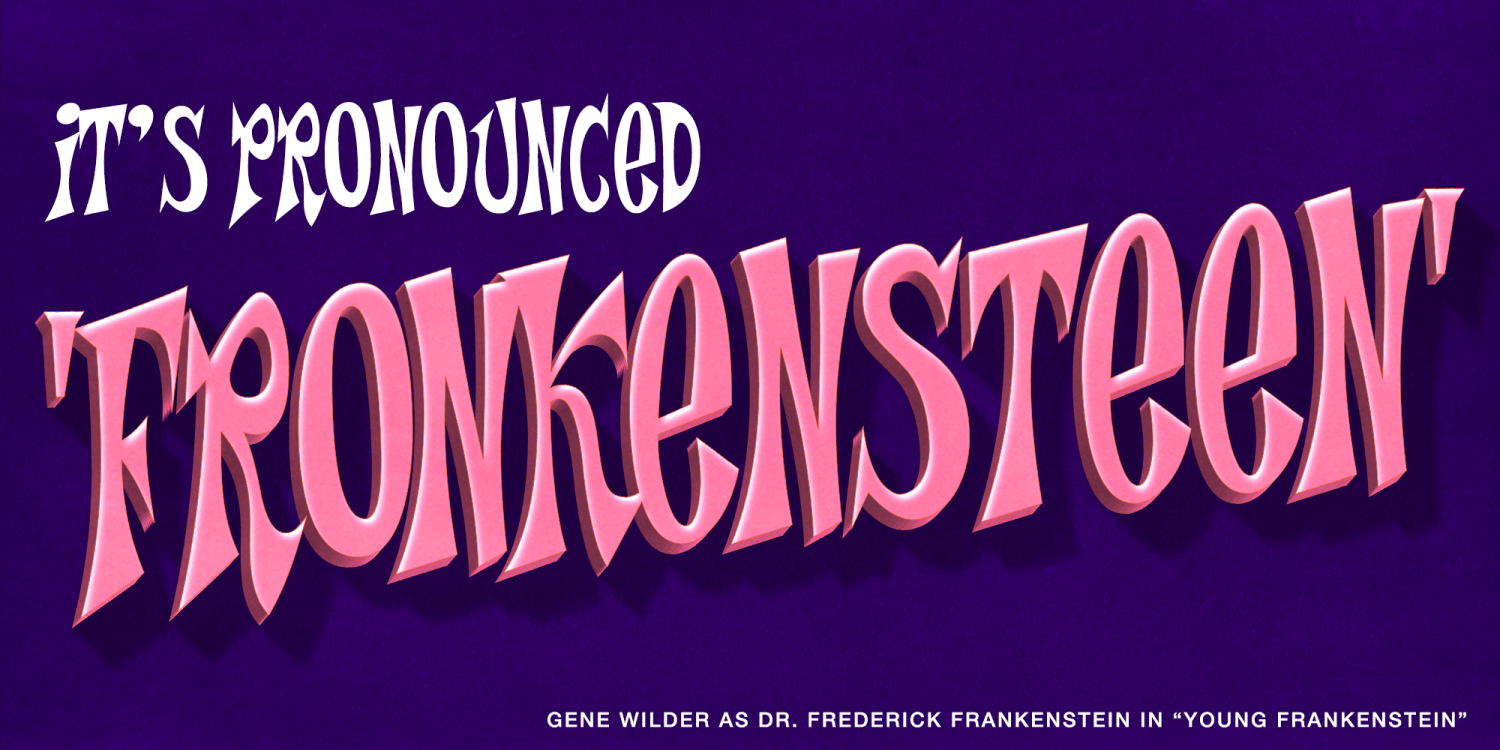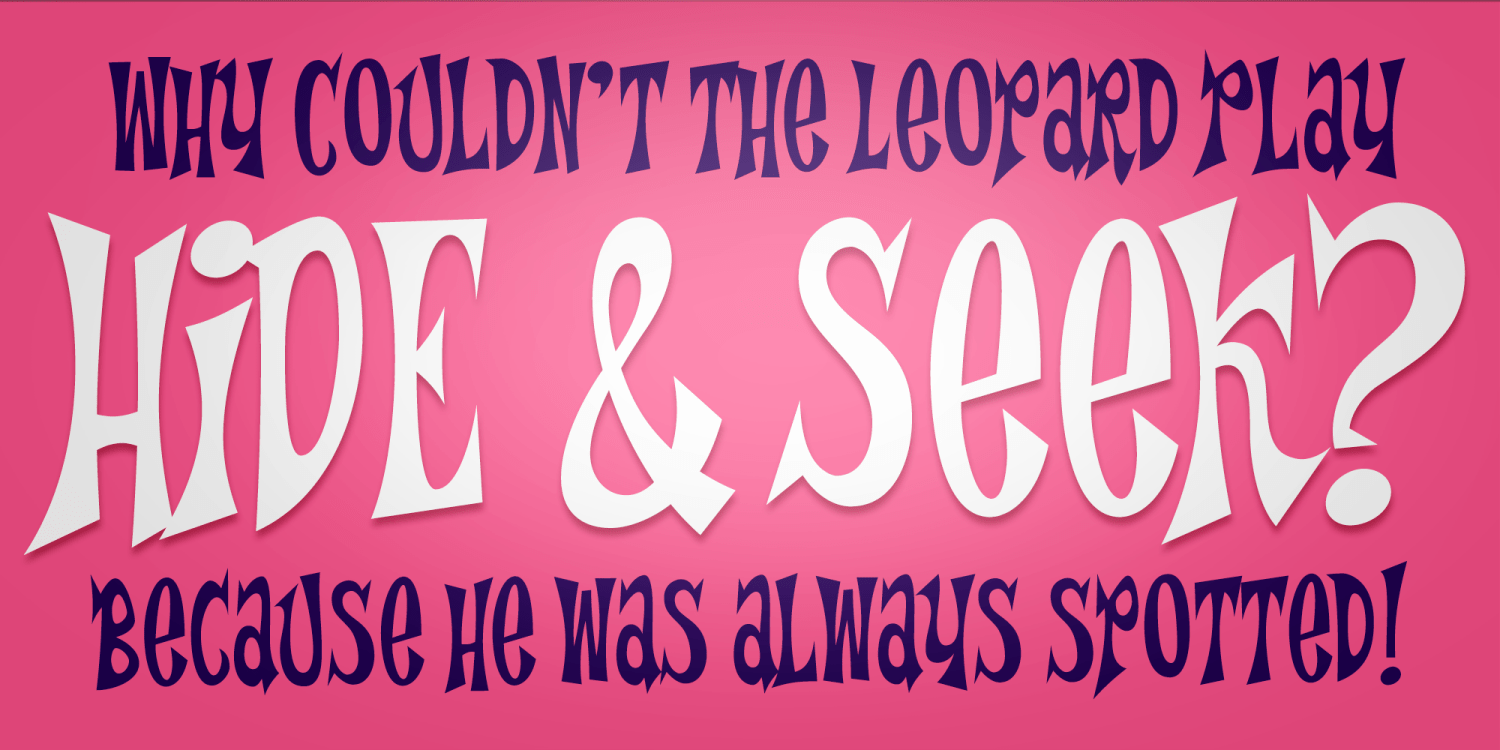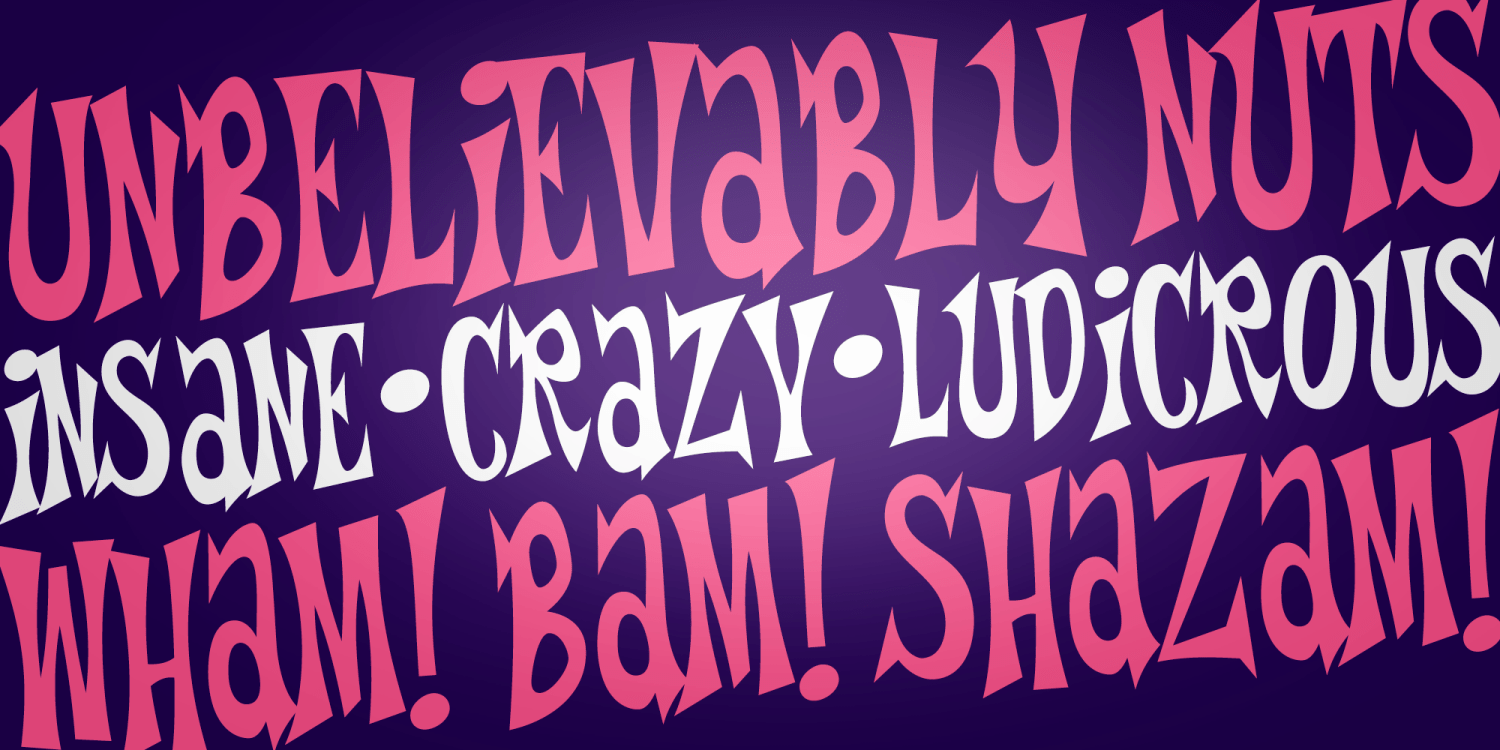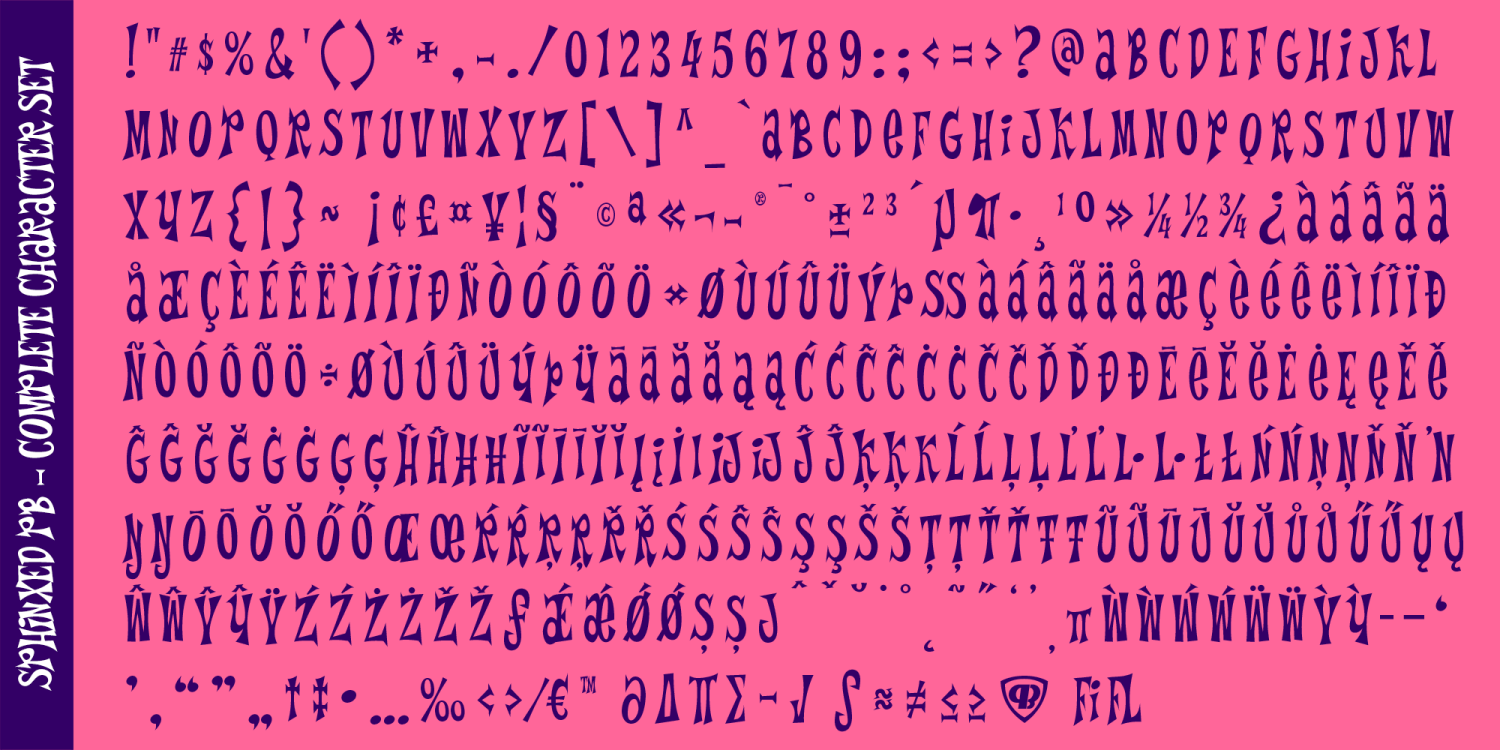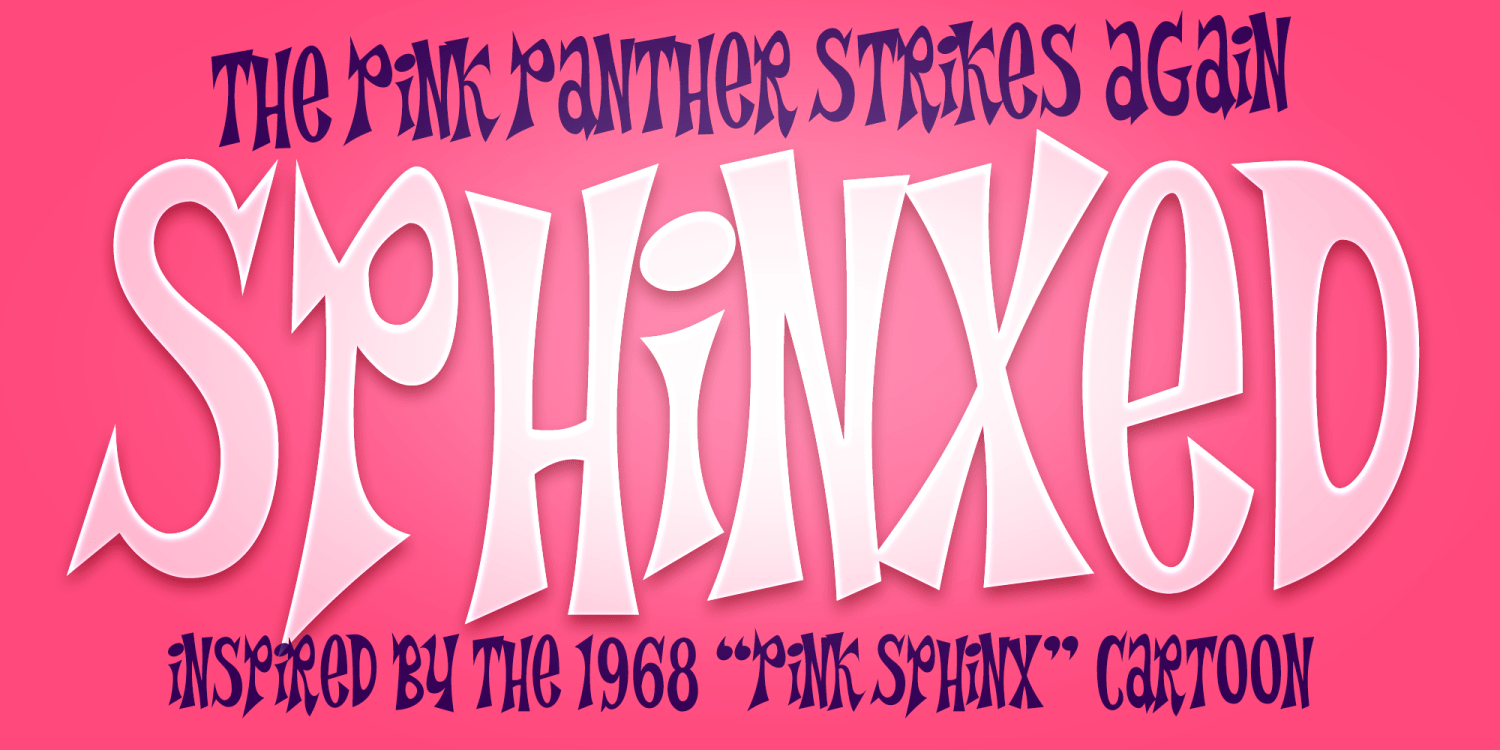
About Sphinxed PB
Sphinxed PB is a recreation of the title lettering from the Season 5, Episode 19 1968 Pink Panther cartoon episode "Pink Sphinx". The lettering had both wedge and flare style serifs along with odd serif styles mixed in randomly and the hap-hazard…